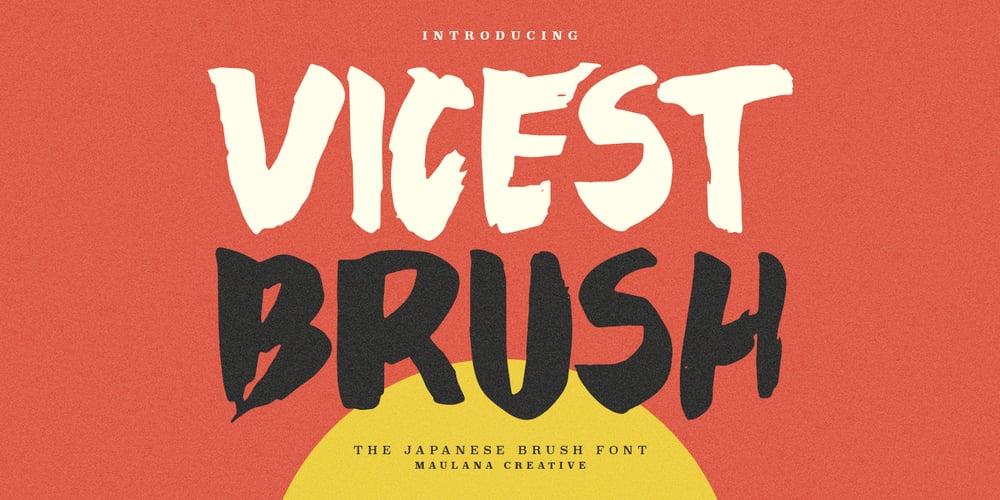
MC Vicest
MC Vicest font
MC Vicest Font Family was designed by Gilang Maulana and published by Maulana Creative. MC Vicest contains 1 styles and family package options. Vicest is a japanese brush font. Heavy brush, fun character with a bit of ligatures and alternates. To give you an extra creative work. Vicest font support multilingual more than 100+ language. This font is good for logo design, Social media, Movie Titles, Books Titles, a short text even a long text letter and good for your secondary text font with script or serif. Make a stunning work with Vicest font.